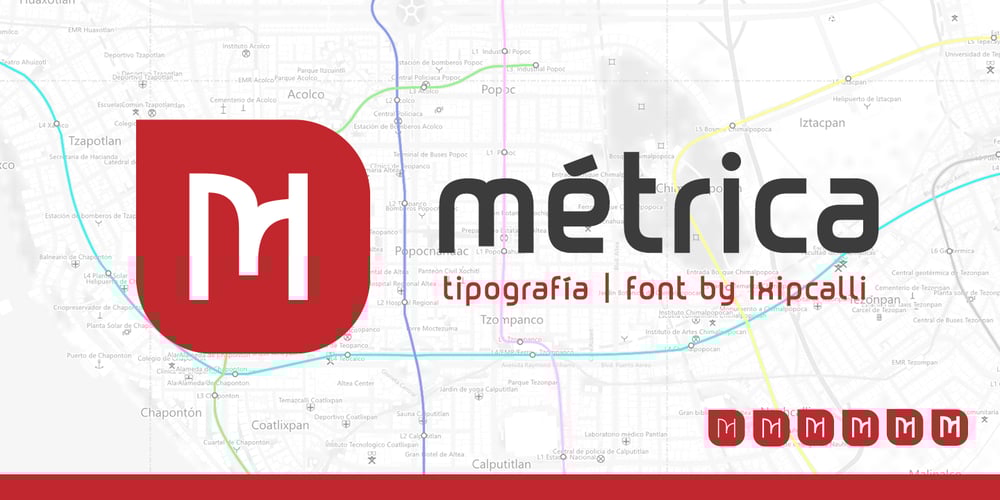
Metrica Font Family was designed by Francisco Arellano and published by Ixipcalli. Metrica contains 12 styles and family package options. Métrica Font, Inspired for Modern Subway